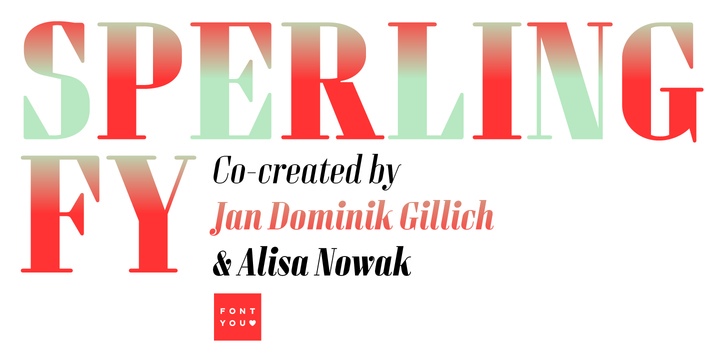
Sperling FY Font
Sperling FY Font is perfect for bird watching organization branding, nature photography logos, wildlife conservation campaigns, ornithology research publications, eco-tourism marketing, outdoor education materials, environmental center signage, and naturalist-themed communications.
What makes Sperling FY Font exciting is its natural precision that captures the grace and intelligence of avian life and scientific observation. The font features clean letterforms with organic flow and methodical character that evoke careful field studies, migration patterns, and the delicate beauty of feathered creatures. Its distinctive naturalist styling and scientific authenticity communicate expertise, environmental awareness, and deep appreciation for nature, making every message feel guided by careful observation and genuine love for the natural world.
The Sperling FY Font family includes regular weight with uppercase and lowercase letters, numerals, punctuation marks, and special characters. Premium versions often feature nature-inspired alternates and ornithological elements that enhance the scientific, naturalist aesthetic perfect for environmental and educational applications.
The scientific character of Sperling FY Font makes it particularly effective for environmental nonprofits, nature centers, and wildlife research institutions. Its excellent readability ensures field guides and educational materials remain clear while maintaining the distinctive naturalist aesthetic that appeals to audiences passionate about bird watching and environmental conservation.
Environmental educators and conservation marketers appreciate how Sperling FY Font effortlessly conveys scientific authority and nature expertise. The font's precise proportions and organic details create trustworthy educational materials that establish connections with audiences who value environmental stewardship, scientific accuracy, and deep nature appreciation.
The versatile naturalism of this typeface extends to outdoor gear companies, nature publishing, and environmental consulting where scientific credibility enhances professional reputation. Sperling FY Font Free Download provides creative professionals with a valuable tool for developing memorable, science-based designs that resonate with audiences who embrace bird watching, environmental conservation, and the careful study of natural phenomena in their educational and recreational pursuits.